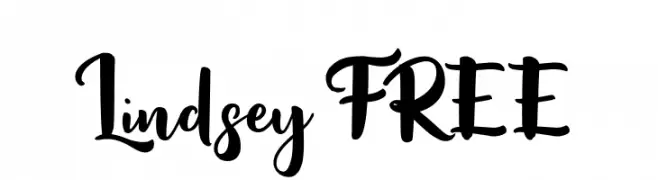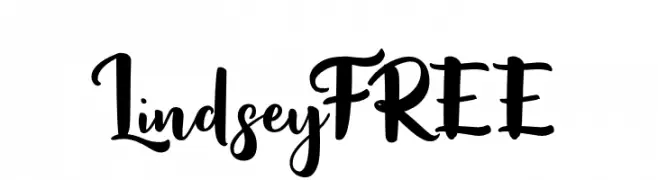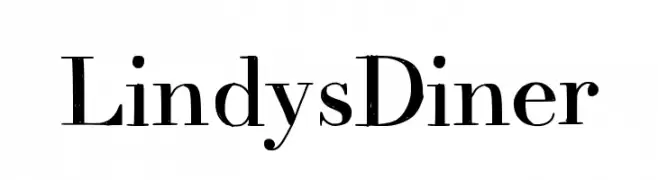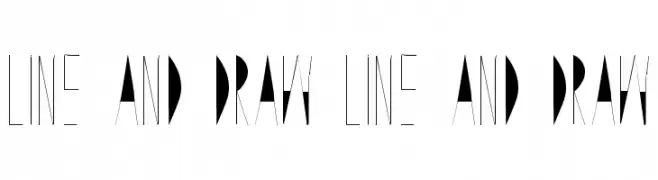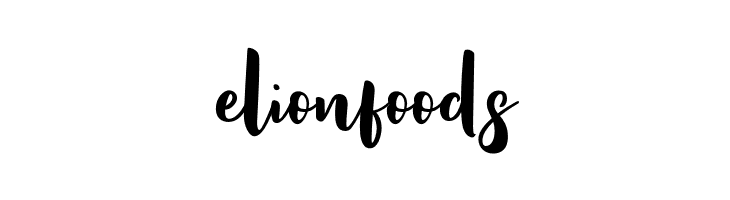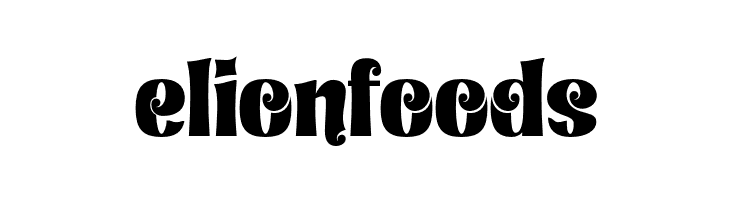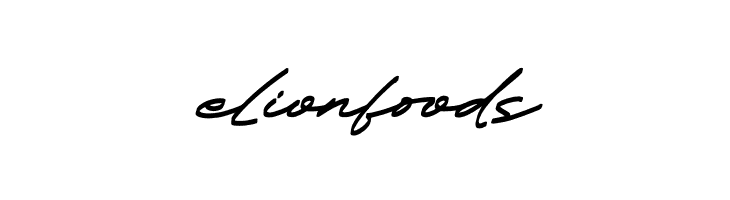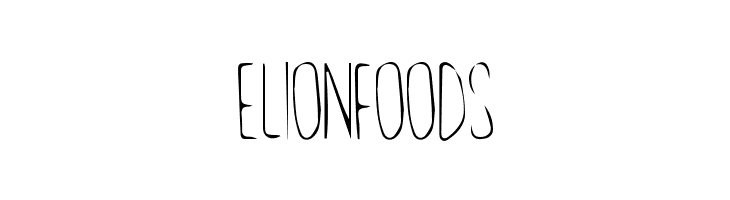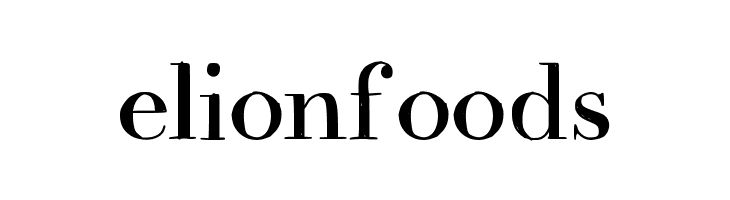
A bold, brush-style handwritten font with dynamic strokes.
A bold, flowing script font with elegant, interconnected characters.
A bold, cursive script with elegant, flowing strokes and playful flourishes.
Elegant cursive script with a handwritten style.
A classic serif font with high contrast and elegant strokes.
A high-contrast, artistic font with elongated, narrow letters and modern geometric shapes.
A tall, slender font with thin strokes and a modern, elegant style.
A bold, geometric sans-serif font with high contrast and unique cutouts.
Intricate, abstract line designs with a vintage and modern aesthetic.